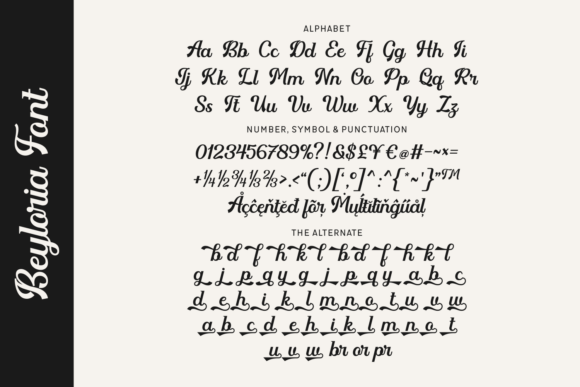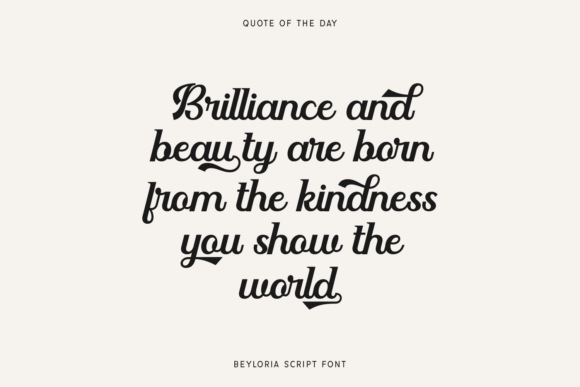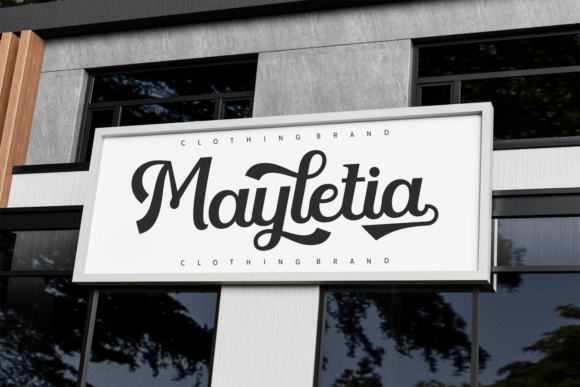
Beyloria Font
Beyloria is a bold and timeless modern script font with a vintage twist. Featuring sharp edges, confident strokes, and stylish underlines, it’s perfect for logos, apparel, retro branding, and headline designs. With its dynamic presence and refined letterforms, Beyloria delivers a powerful blend of classic charm and modern flair.